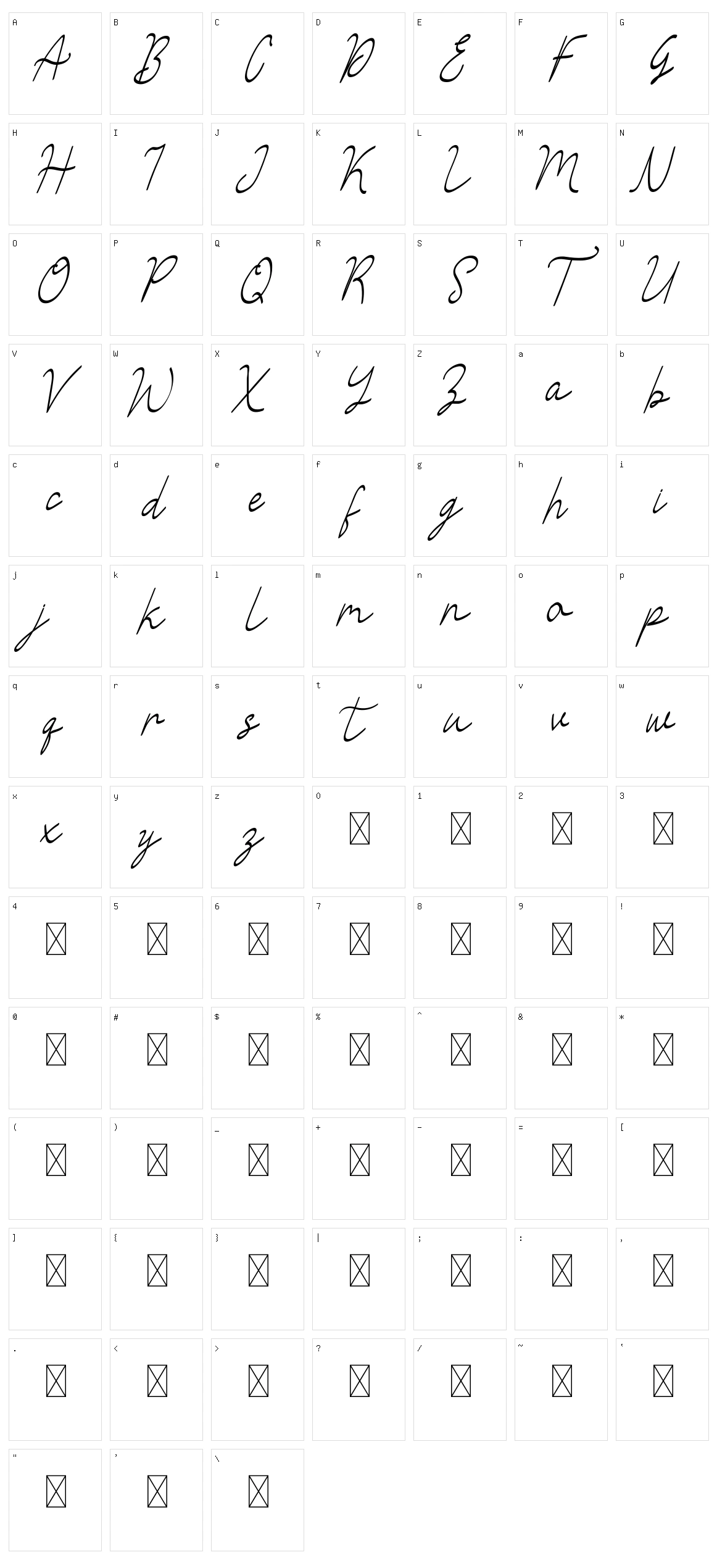
The free font Sellby Ridge is carefully designed by Edric Studio, showcasing a thoughtful balance of creativity and usability and falls under the Script font style. When you download the ZIP file, it contains only 14.19 KB of font files, making it lightweight and quick to download. Please review the license details below to understand permitted usage and distribution rights. If license information is not available, we recommend using this font for personal projects only or contacting the author directly for commercial usage permissions.